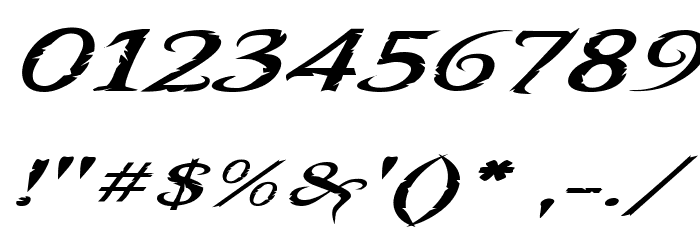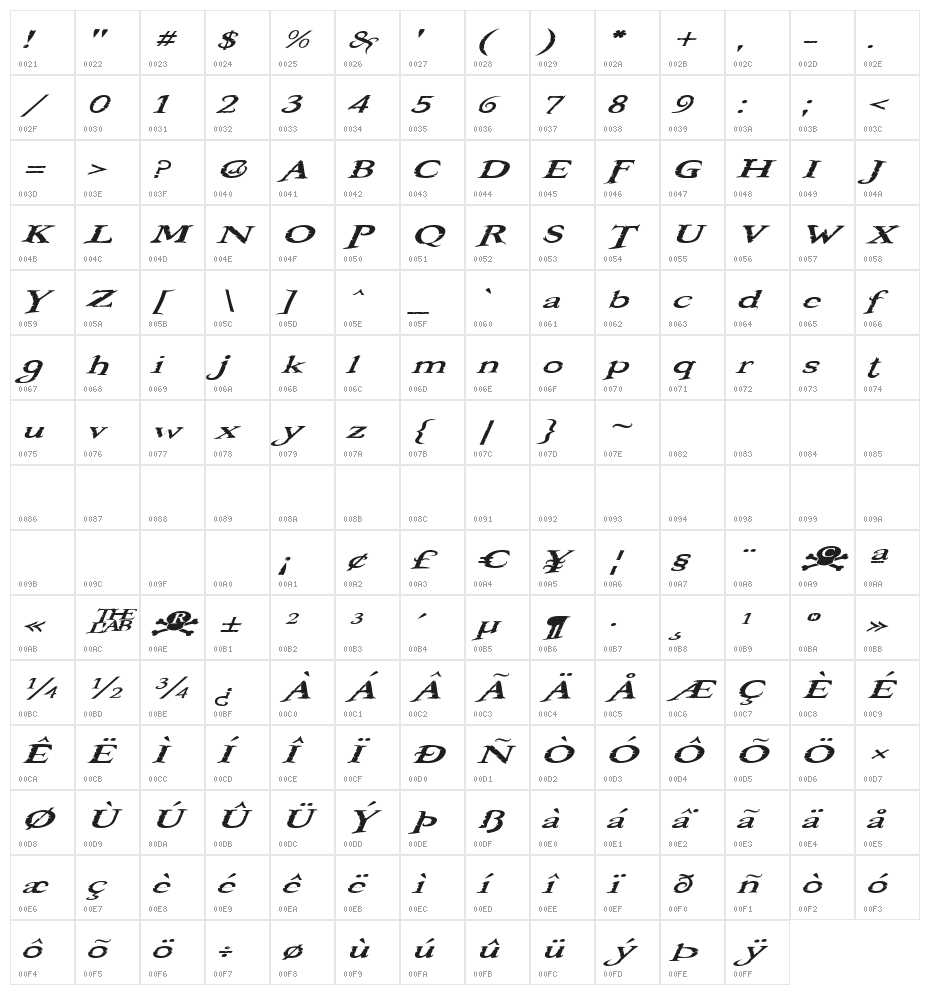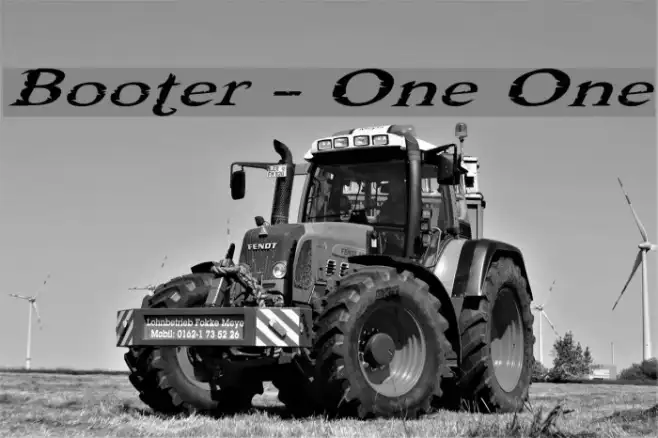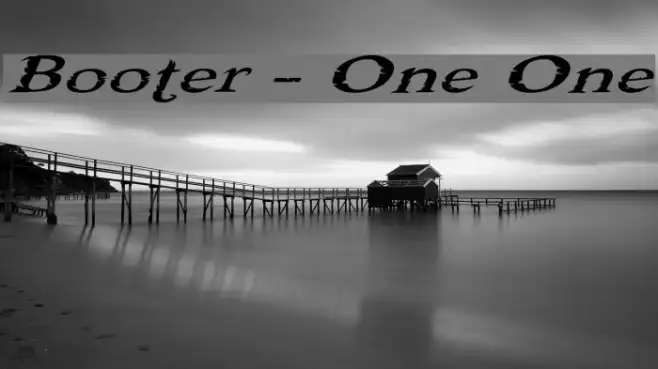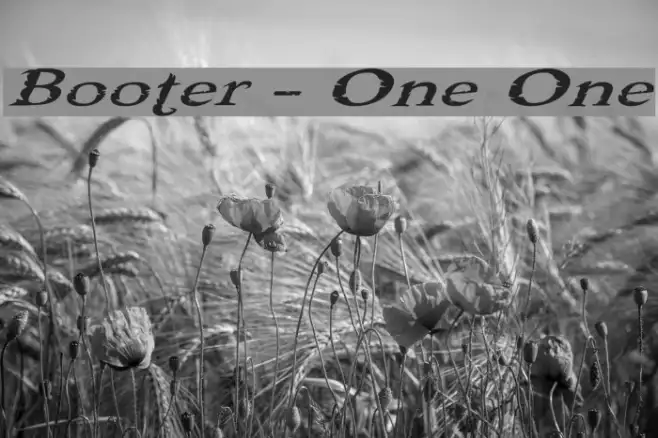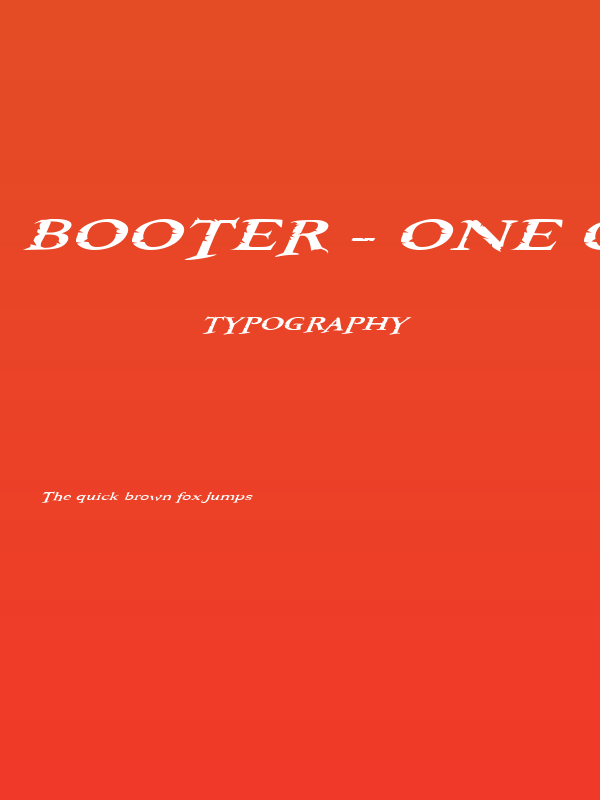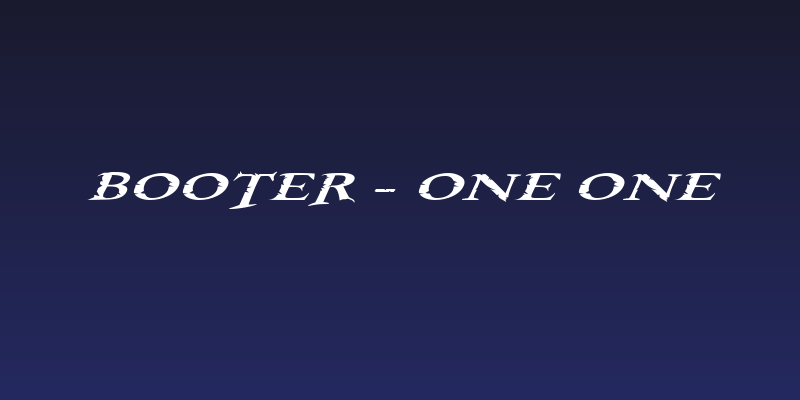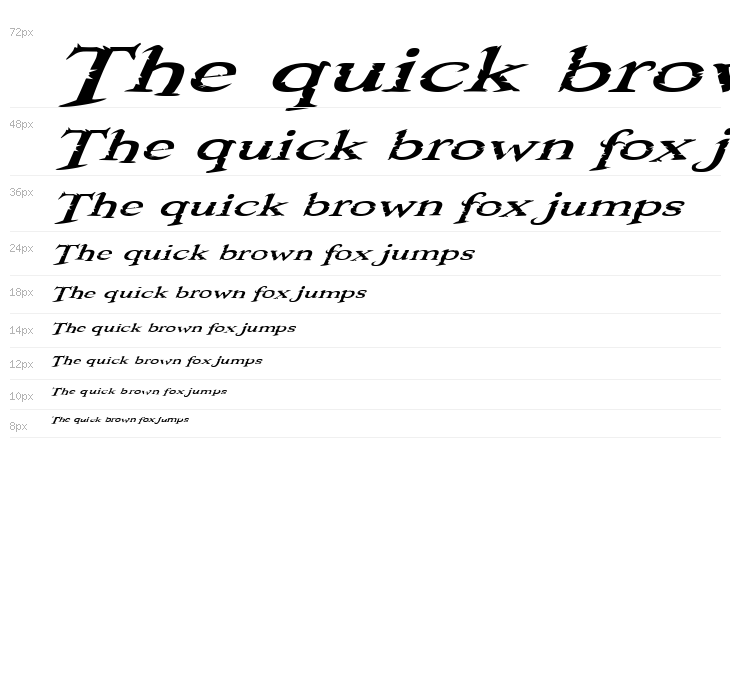
Booter - One One Font
Booter - One One Description
This font exhibits a dynamic and energetic style with its sharp, angular strokes and pronounced slant. The characters are designed with a sense of movement, giving an impression of speed and urgency. The uppercase letters are bold and commanding, while the lowercase letters maintain a consistent flow with slightly exaggerated curves. The numerals are distinct and maintain the same slanted, sharp aesthetic. Special characters are integrated seamlessly, adding to the overall cohesive look. This font is ideal for projects that require a bold statement and a touch of modern flair.